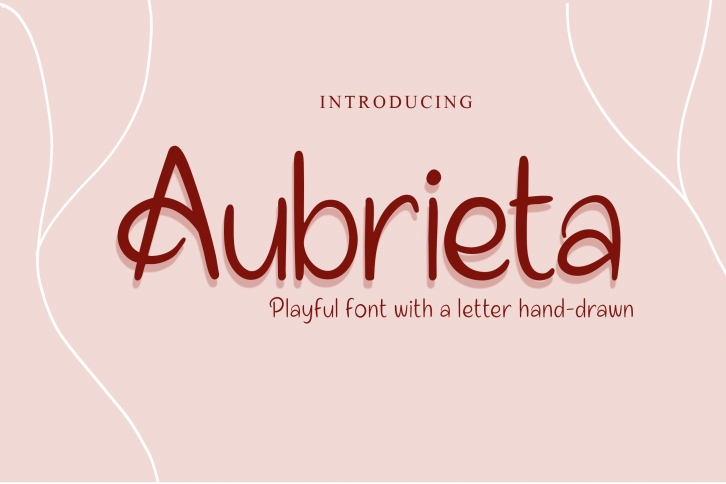
Aubrieta is a great font that was designed by Colative. Imagine the amount of combinations you can create using this font! The archive is 21.95 MB and it was released on November 19, 2020. Aubrieta looks beautiful on wedding invitations, greeting cards, logos, posters, labels, t-shirt designs, logos, business cards and is perfect for use in ink or watercolor works, fashion, magazines, packaging and food menus, children's books and more!